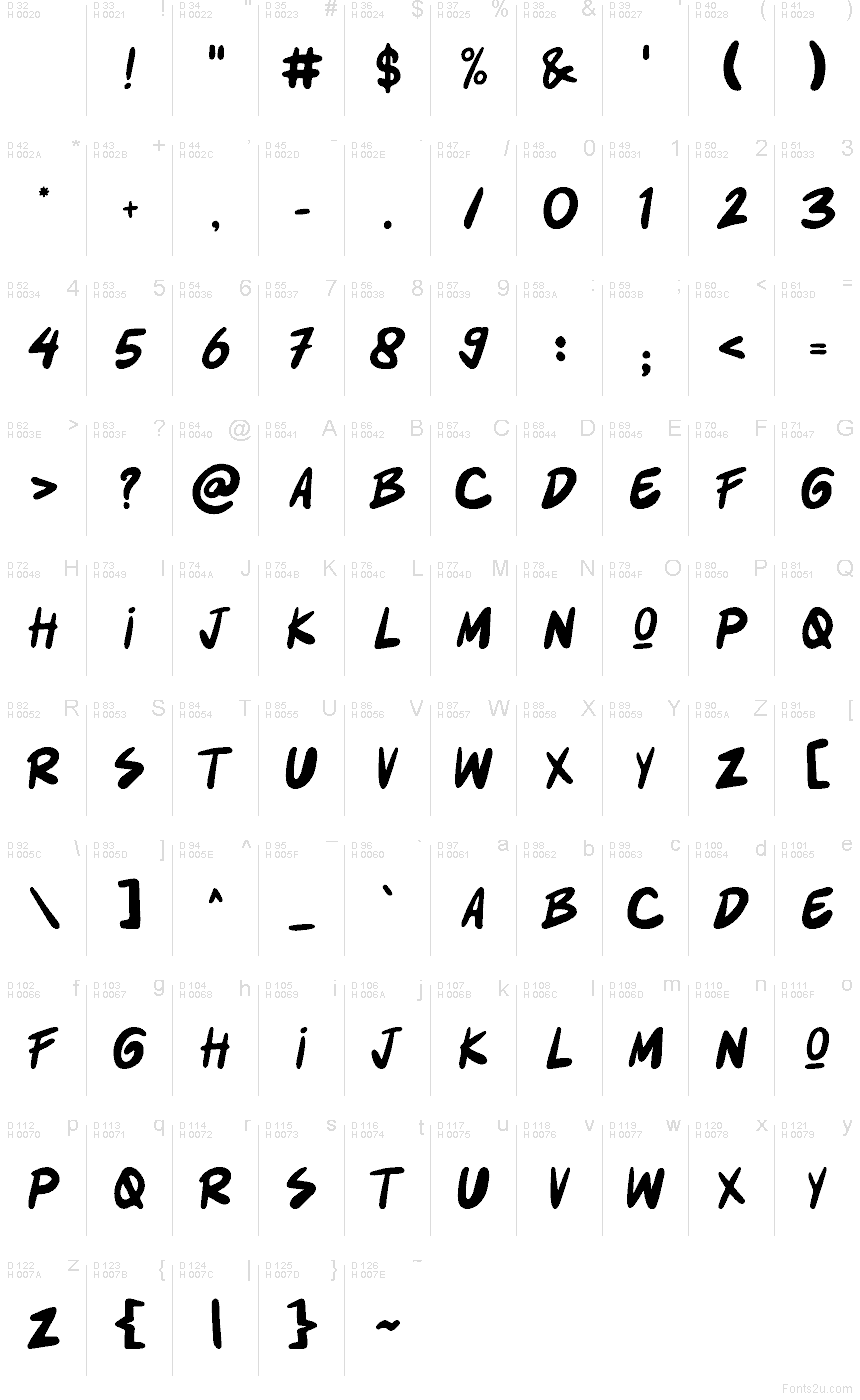
Oreo by FJRSLM is a free cartoon display font with thick hand-drawn letters and a lively forward lean. Broad brushlike strokes, uneven curves, and repeated underlines suggest a quickly drawn comic logo.
Comic-book humor and playful food themes are the clearest territory for this lively, informal lettering. It suits snack packaging, children's event graphics, and animated title cards because the chunky shapes can read as both letters and illustration. Merchandise and game graphics can also turn the underlined forms into a central part of a mascot-like emblem rather than ordinary text.